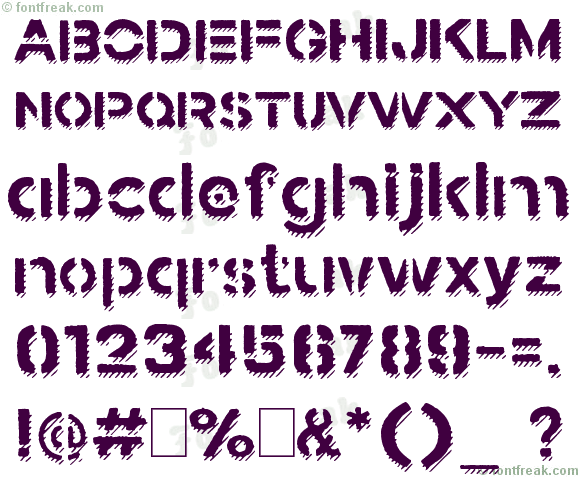
Stamped Navy Font Shadow
About Stamped Navy Font Shadow
Stamped Navy Font Shadow, designed by Leonard Posavec, is a striking display font that embodies a handmade aesthetic with its unique stamped appearance. This font falls under the decorative category and features bold, uneven strokes that create an eye-catching visual impact. The shadow effect adds depth, making each letter appear as though it is slightly raised from the background, which enhances its three-dimensional quality. The irregularities in the letters provide a sense of authenticity, reminiscent of traditional printing techniques.
With a strong presence and distinctive style, Stamped Navy Font Shadow is ideal for various creative projects. It excels in use cases such as restaurant menus, where its boldness can capture attention and convey a rustic charm. Additionally, it is perfect for movie posters, adding a dramatic flair that draws viewers in. Wedding invitations benefit from its unique character, setting a memorable tone for special occasions. Graphic designers will find it suitable for branding efforts, particularly for small businesses that aim to convey a handmade or artisanal quality. Content creators can also utilize this font in social media graphics, making posts stand out in crowded feeds.
What truly makes Stamped Navy Font Shadow stand out is its ability to balance boldness with a handcrafted feel, offering versatility in design while maintaining a personal touch. For those looking to elevate their typography, Stamped Navy Font Shadow font free download is an excellent choice for adding character and uniqueness to any project.